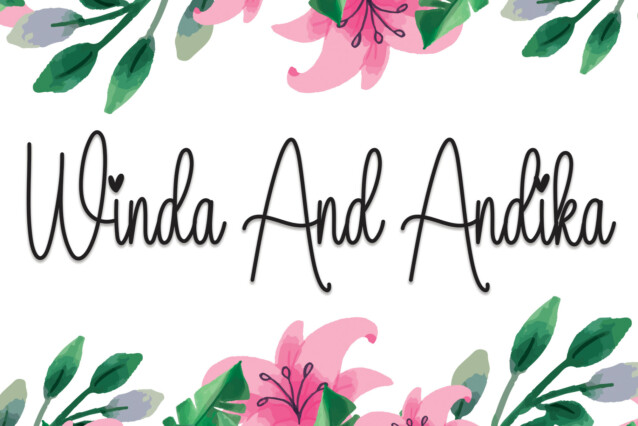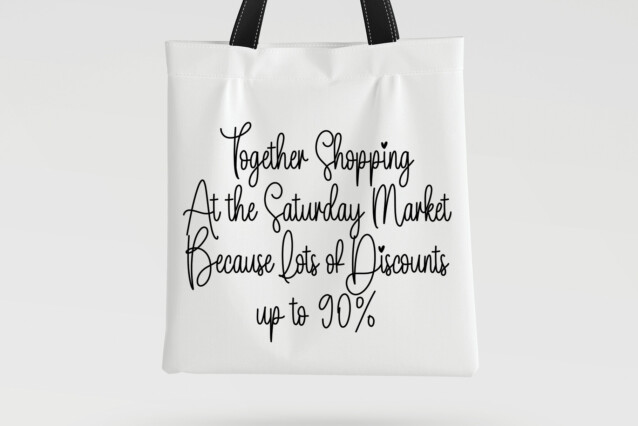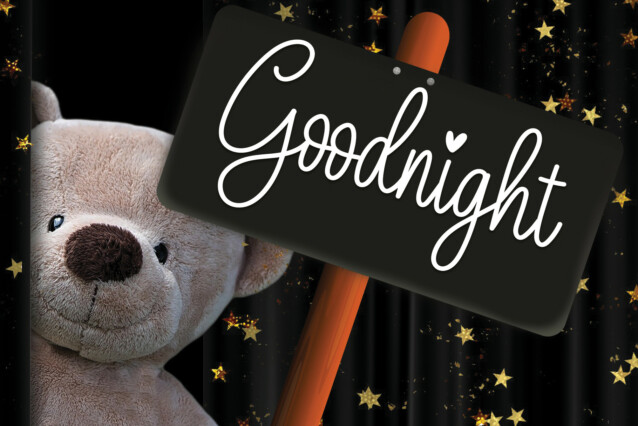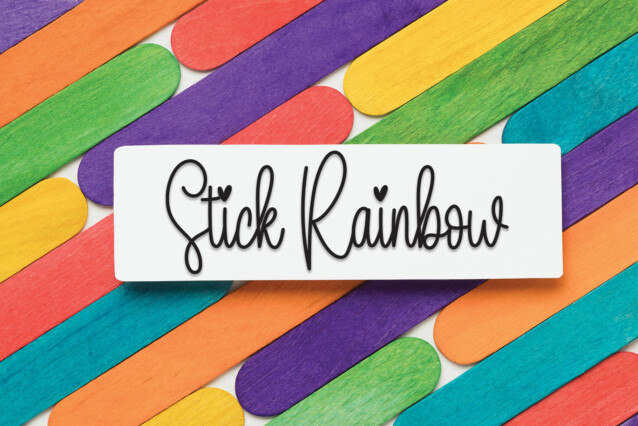
Honeymoon Vacation Script Font
Honeymoon Vacation Script Font is a lovely and timeless handwritten font. It is the best choice for creating eye-catching logos, branding, and quotes. Every letter has a unique and beautiful touch, which will make your design come alive!